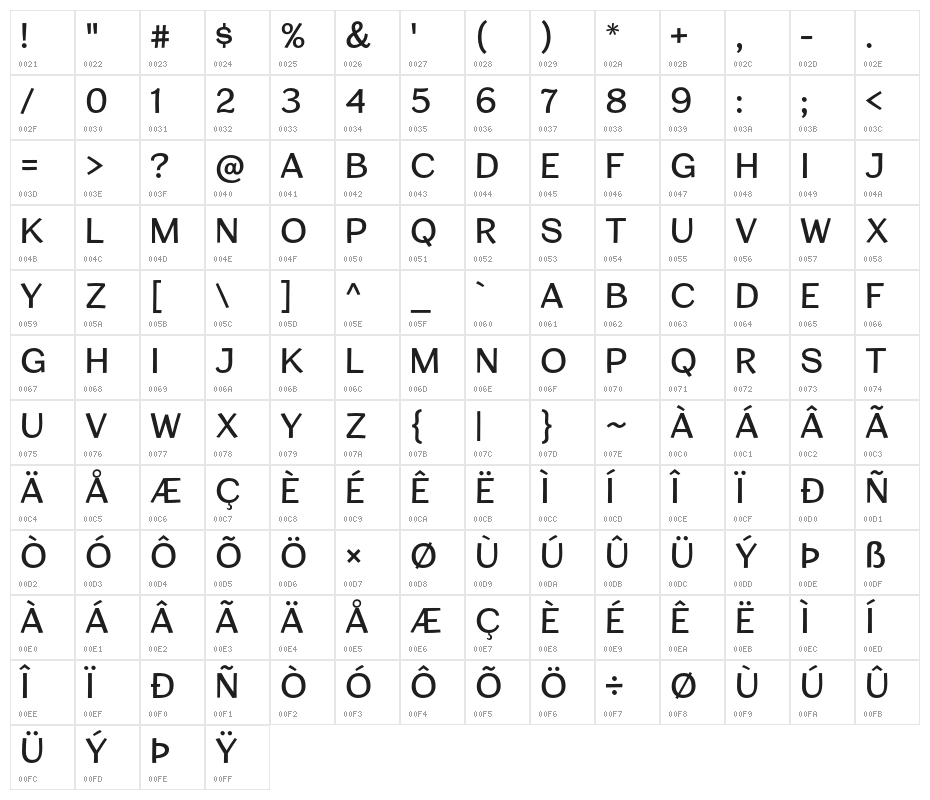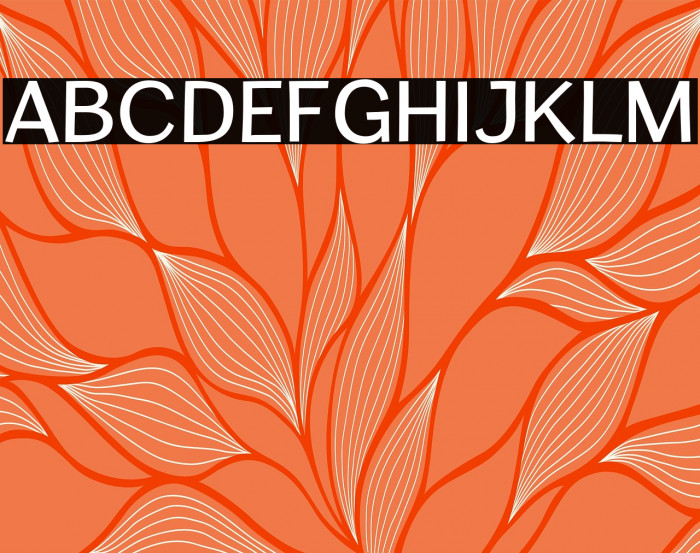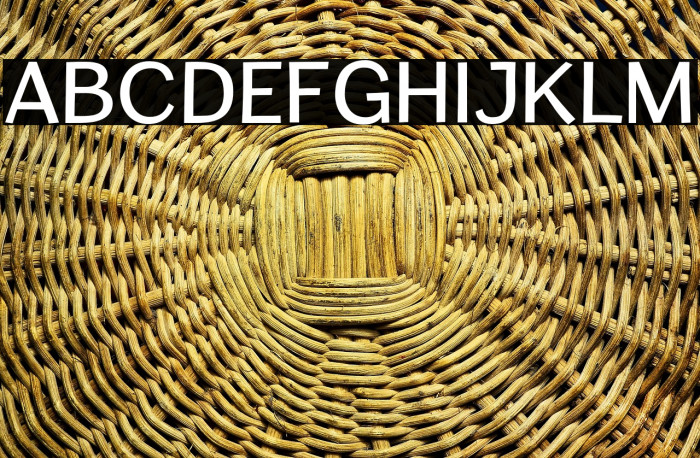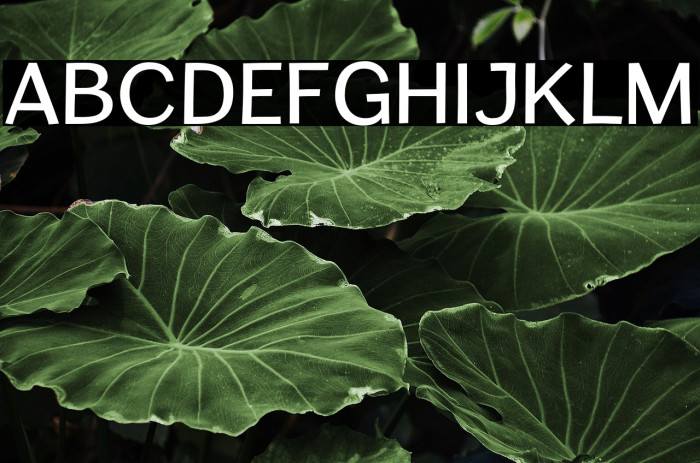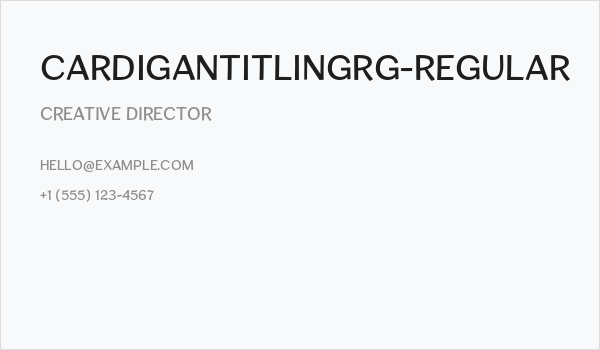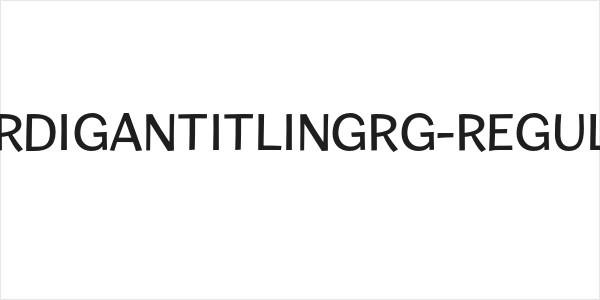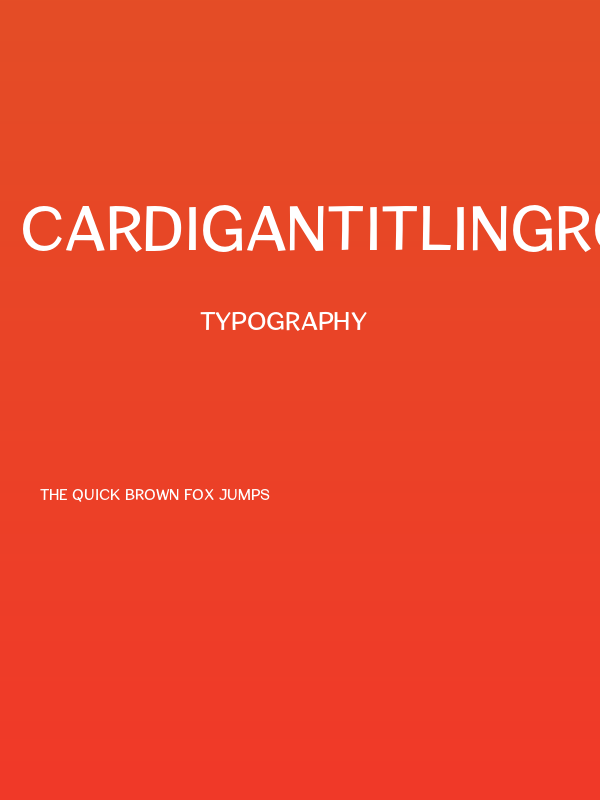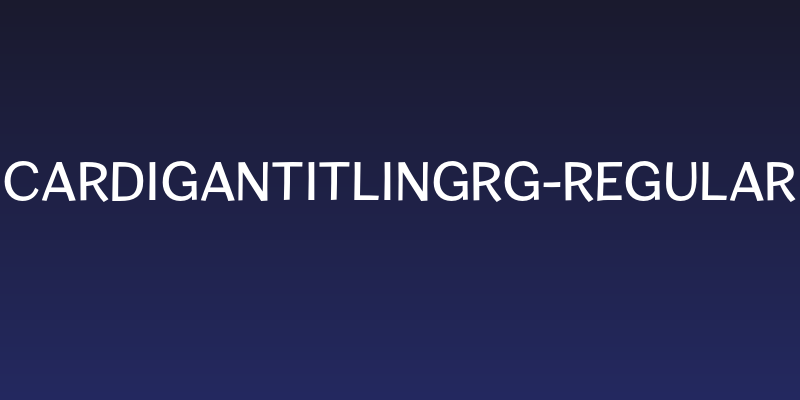
CardiganTitlingRg-Regular Font
CardiganTitlingRg-Regular Description
This font features a clean and modern sans-serif design with a uniform stroke width, providing a sleek and professional appearance. The characters are well-proportioned, offering excellent readability and versatility. The uppercase letters are bold and assertive, while the lowercase letters maintain a consistent style that complements the overall design. The numerals are clear and distinct, making them suitable for various applications. Special characters are included, enhancing the font's utility for diverse projects. Its simplicity and clarity make it ideal for both digital and print media.
| Proposed Projects | Ideal for branding, advertising, web design, and editorial projects. |